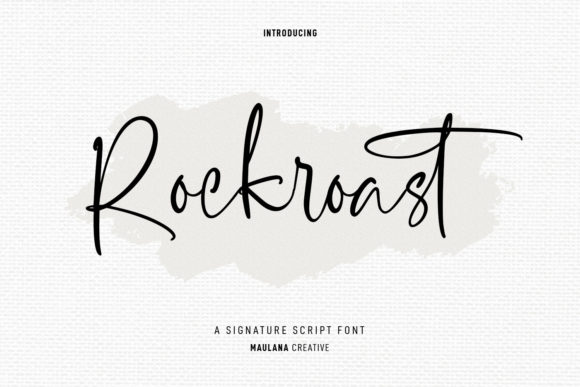
Journey through the realm of typography with Rockroast, a script font that captivates the senses with its exquisite design. Let your imagination run wild as you explore the endless possibilities that await you with Rockroast, the ultimate font for expressing yourself creatively. Dive into a world of elegance and refinement, where your words dance gracefully across the page, leaving a trail of beauty and inspiration.
Unleash your inner artist and transform ordinary designs into captivating masterpieces with Rockroast. Its sweeping curves and intricate details add a touch of timeless glamour to your creations, making them stand out from the crowd. Whether you're crafting logos, branding projects, magazine covers, or social media graphics, Rockroast elevates your work to new heights, leaving a lasting impression on your audience.
With Rockroast, you'll discover a font that effortlessly blends timeless elegance with modern charm. Its versatile nature makes it the perfect choice for a wide range of projects, from chic wedding invitations to playful social media posts. Let your creativity soar as you explore the infinite possibilities that lie within Rockroast's graceful strokes.
Picture yourself holding a beautifully crafted product adorned with a logo designed using Rockroast. Feel the admiration as your branding project exudes professionalism and sophistication. Envision your magazine covers captivating readers with headlines that seem to dance off the page. Imagine your social media posts attracting likes and shares with their eye-catching visuals, all thanks to the enchanting allure of Rockroast.
Join the ranks of creative visionaries who have embraced Rockroast's allure. Let your imagination flourish as you craft designs that resonate with your audience, leaving an indelible mark on their minds. Experience the transformative power of Rockroast, the font that ignites creativity and turns your artistic dreams into tangible realities.